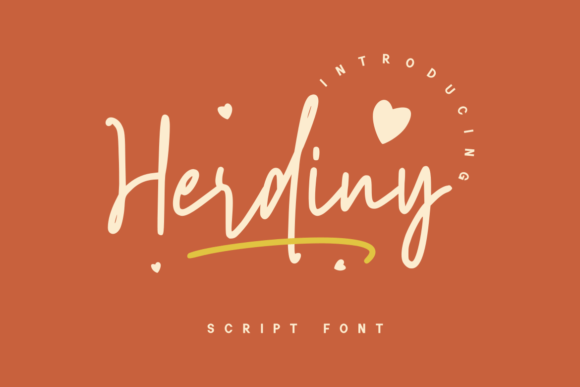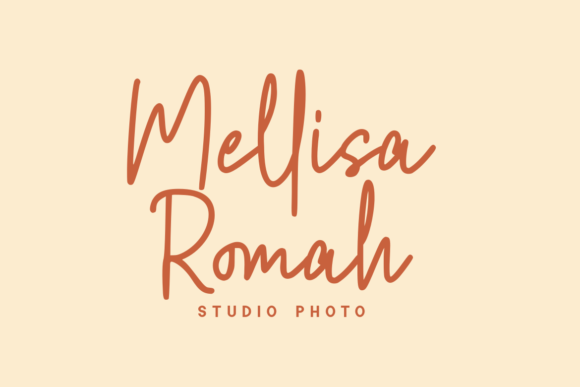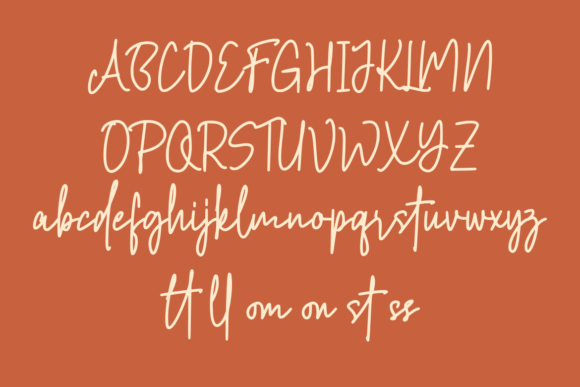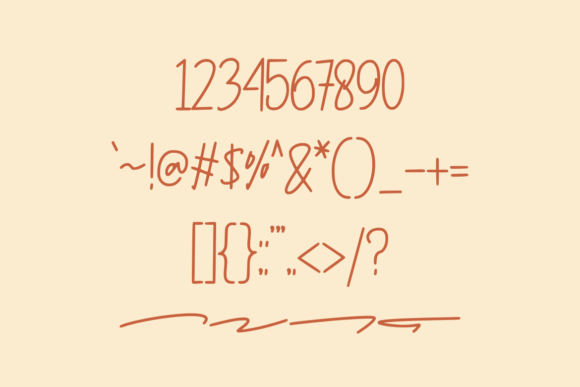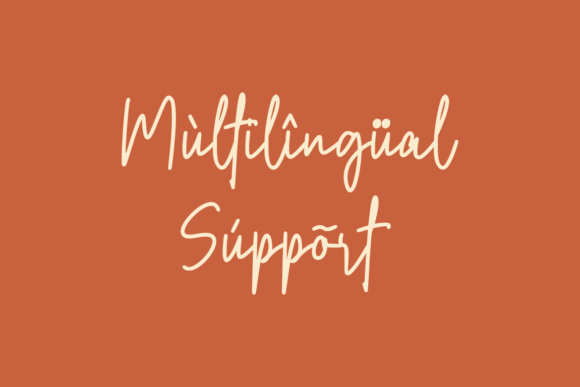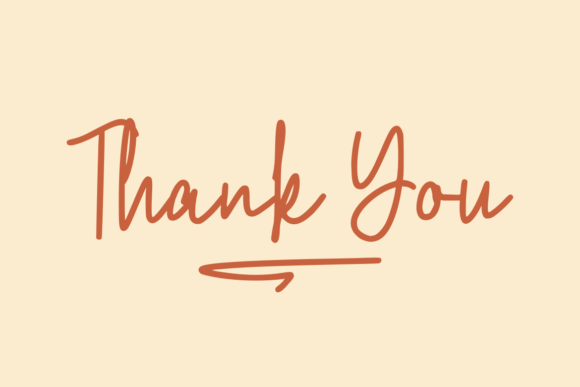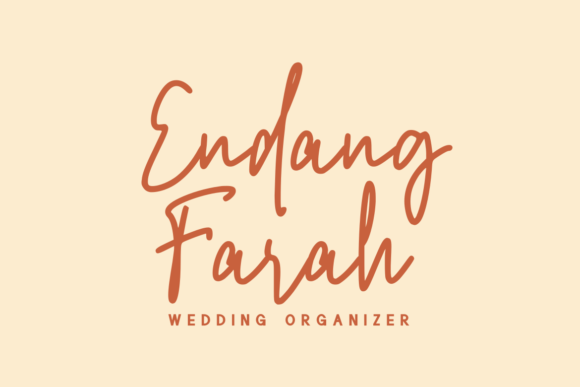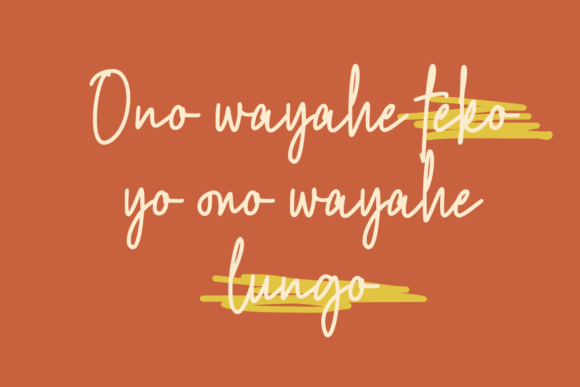
Herdiny Font
About Herdiny Font
Herdinyfont is a beautifully crafted modern cursive script that adds a naturally exquisite flair to any design project. When you download Herdiny font, you gain access to a stylish and elegant typeface that combines contemporary aesthetics with smooth, flowing strokes. This font is perfect for designers looking to bring a fresh, handcrafted touch to their work.
Stylish Modern Cursive
The modern cursive style of Herdiny gives your text a graceful and fluid movement. Its clean yet expressive characters create a balanced look that feels both sophisticated and approachable. Whether used for headlines or longer text, Herdiny maintains readability without sacrificing elegance.
Versatile Use for Creative Projects
Herdiny font is highly versatile. It works wonderfully for branding, logos, wedding invitations, social media graphics, packaging, quotes, and more. This font elevates your designs with its natural handwritten feel, making every project look refined and unique. Download Herdinyfont to enrich your creative toolkit with a script that adapts effortlessly to various styles.